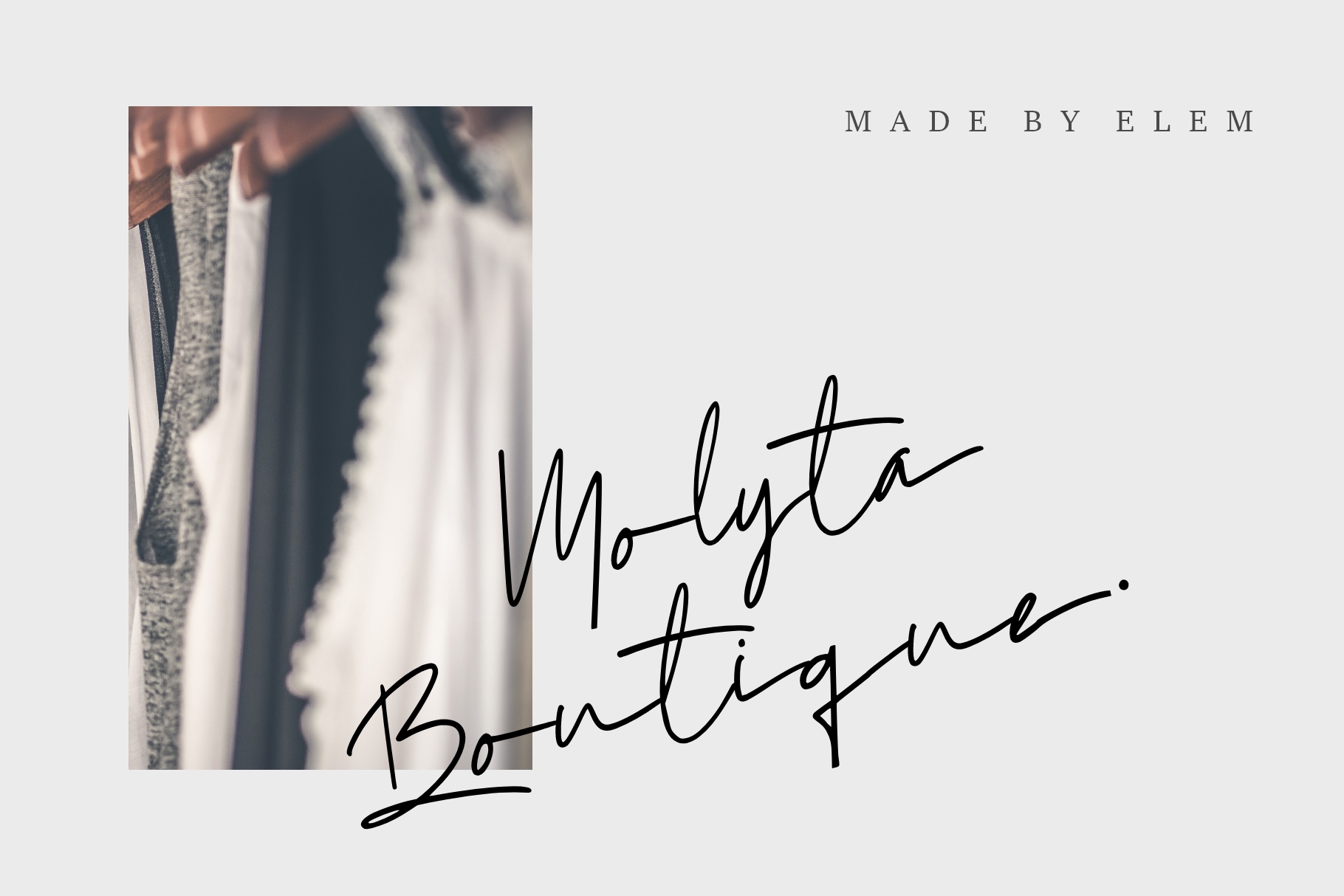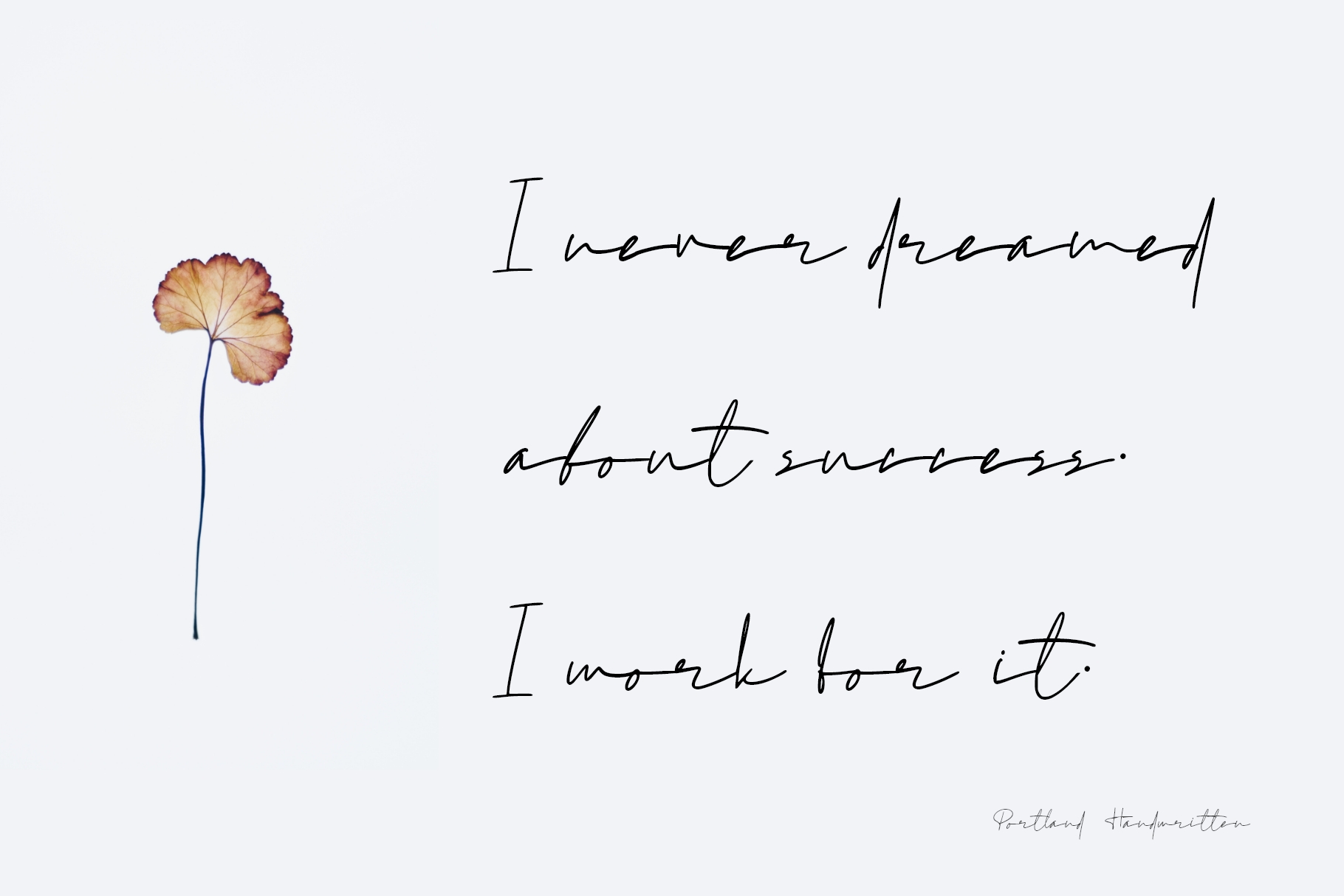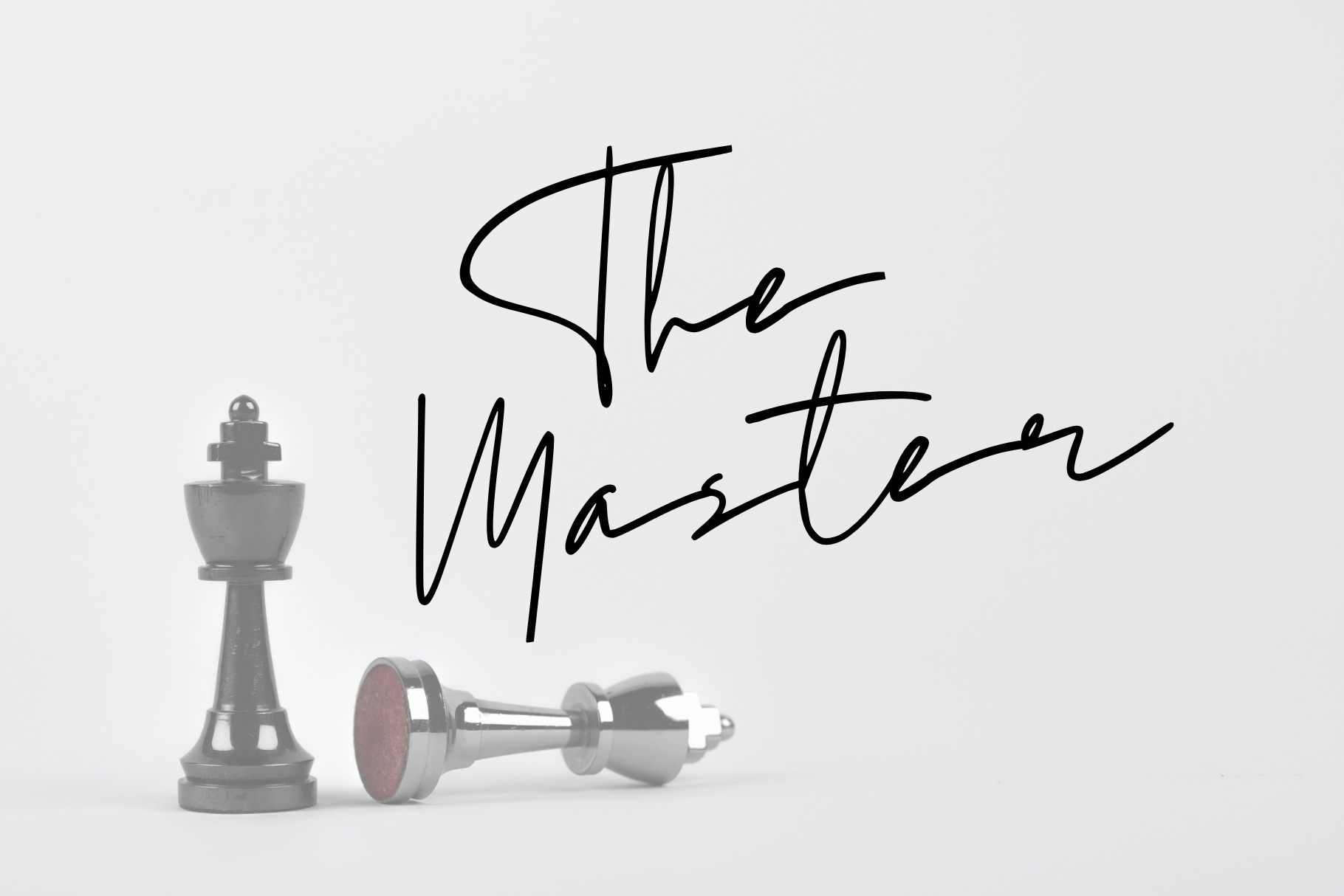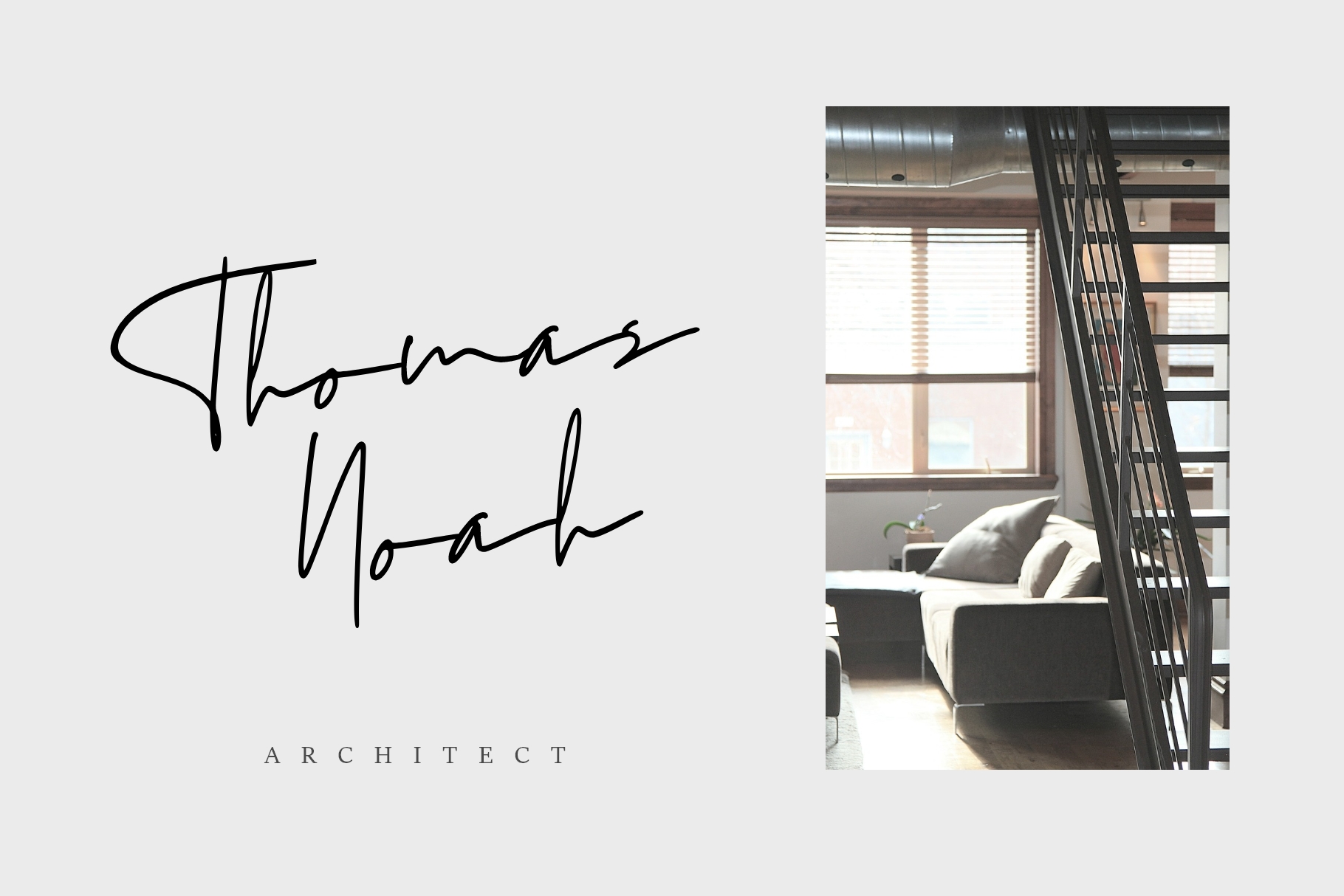
Portland Font
Portland Handwritten Font
This is a beautiful natural handwritten font with lowercase beginning and ending. Beautiful font upright and bold. Very suitable for branding, invitations, watermarks, photography, and more